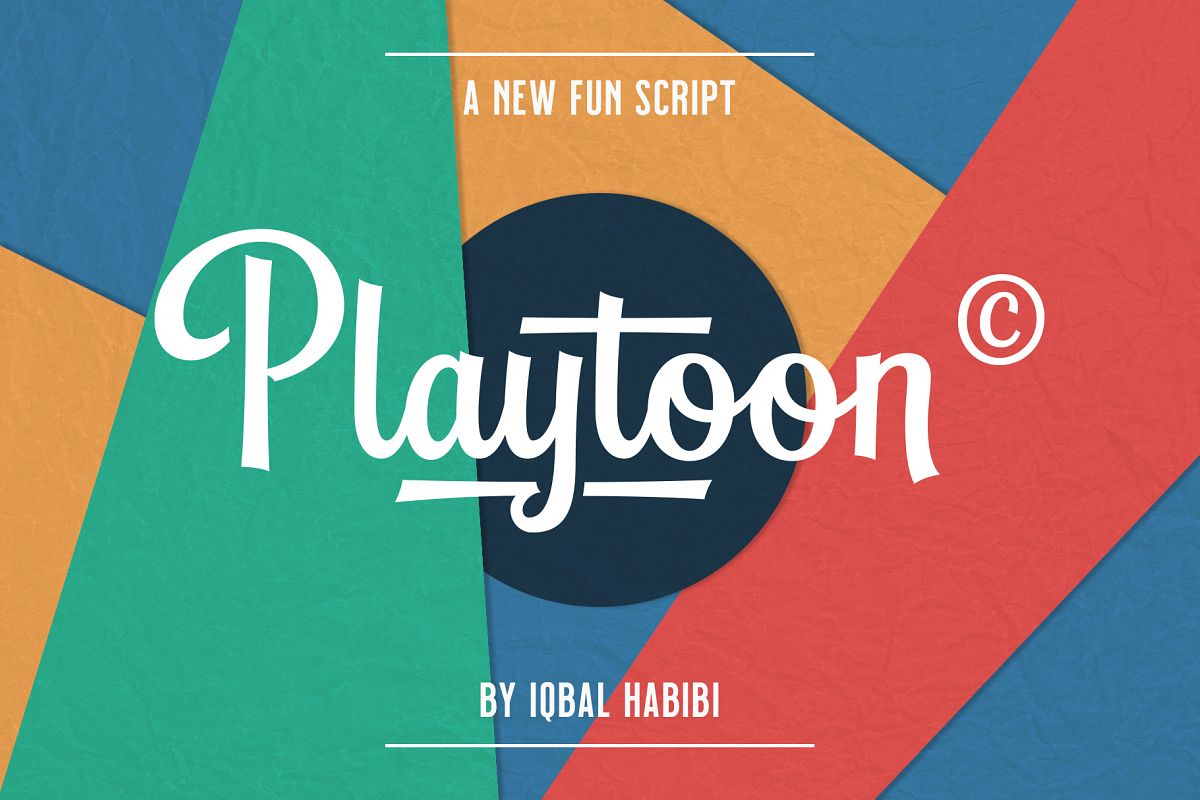
Playtoon
Playtoon is a fun script font. Playtoon has many alternate characters and ligatures. Great for create lettering works, logotype, tshirt design, packaging design, signboard, poster, and many more. Playtoon will make your design works more fun and cool.
Playtoon features :
-Alternates and Ligatures
-Number, Punctuation and Symbols
-Accented Character (ÁÂÄÀÅÃÆÇÐÉÊËÈÍÎÏÌÑÓÔÖÒØÕŒÚÛÜÙẀŴẄẂÝŶŸỲáâäàåãæçđéêëèíîïìñóôöòøõœúûüùẃŵẅẁýŷÿỳ)